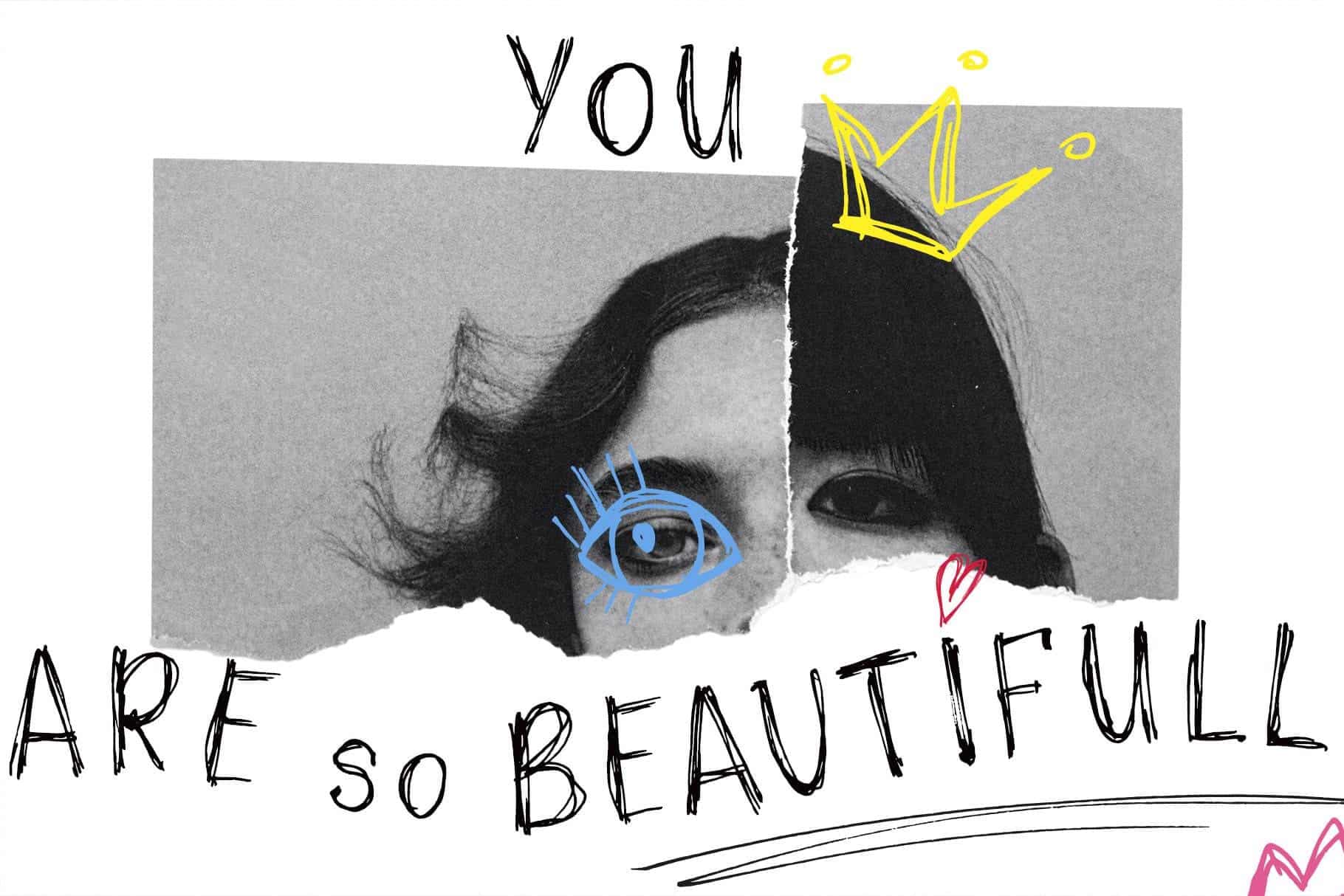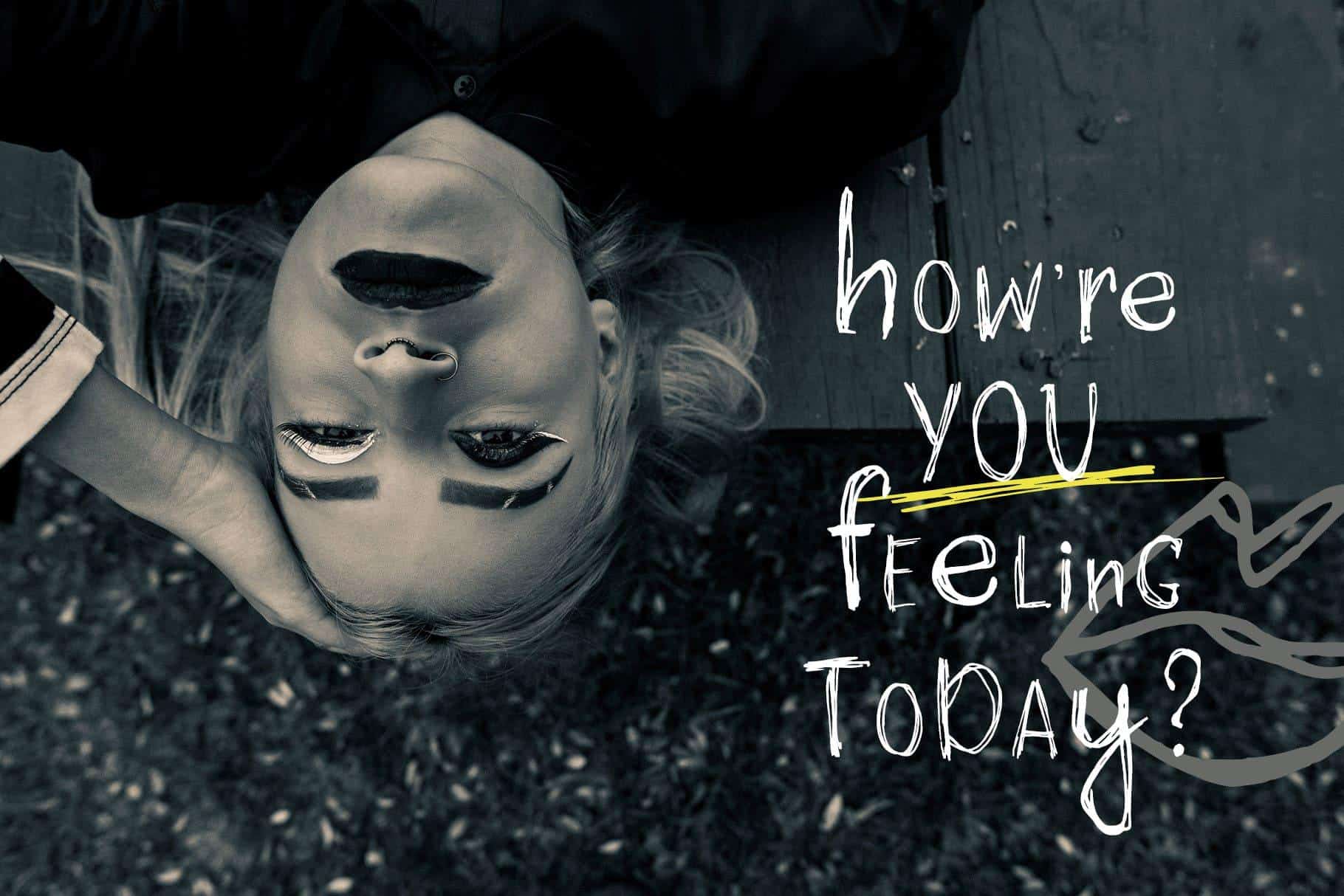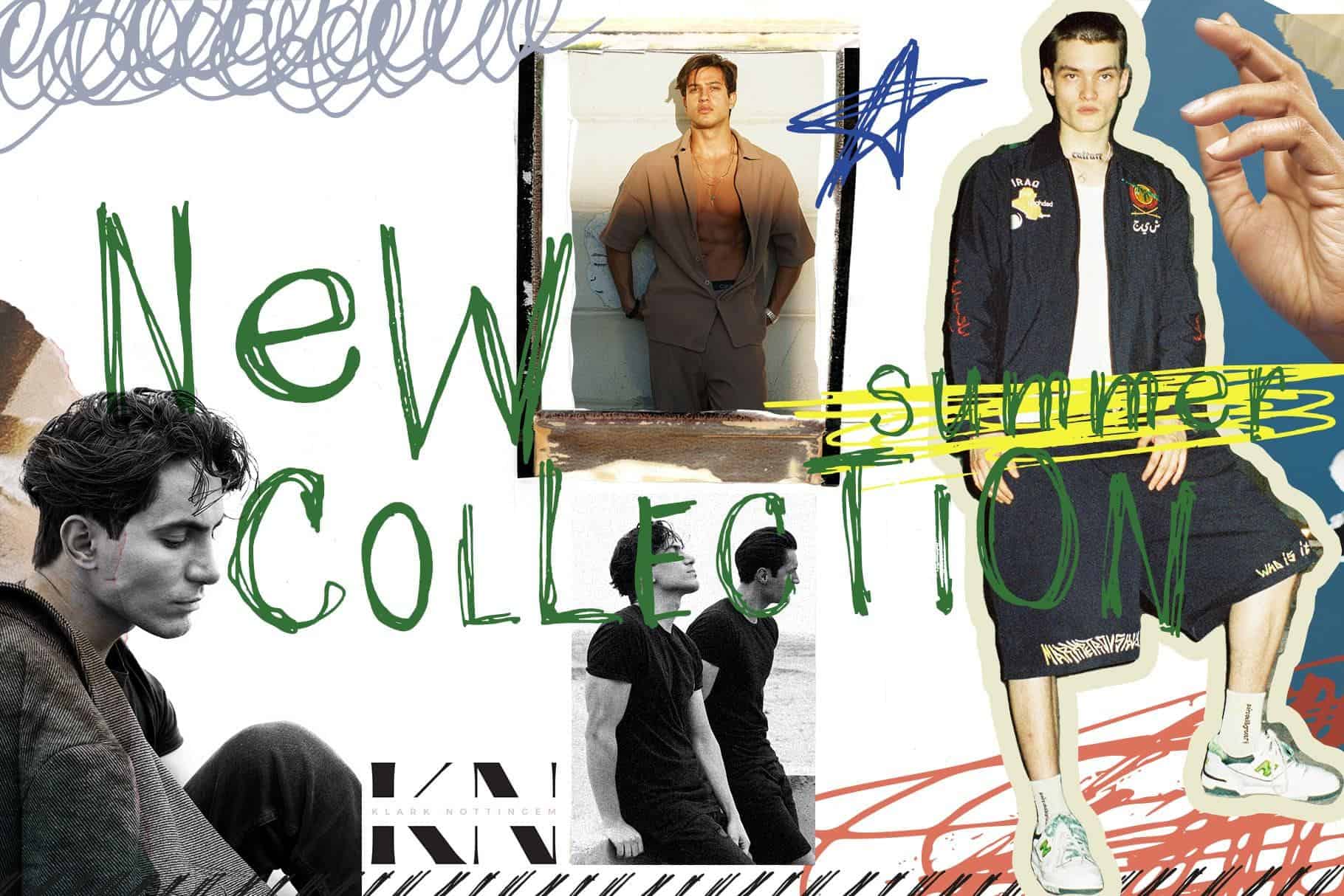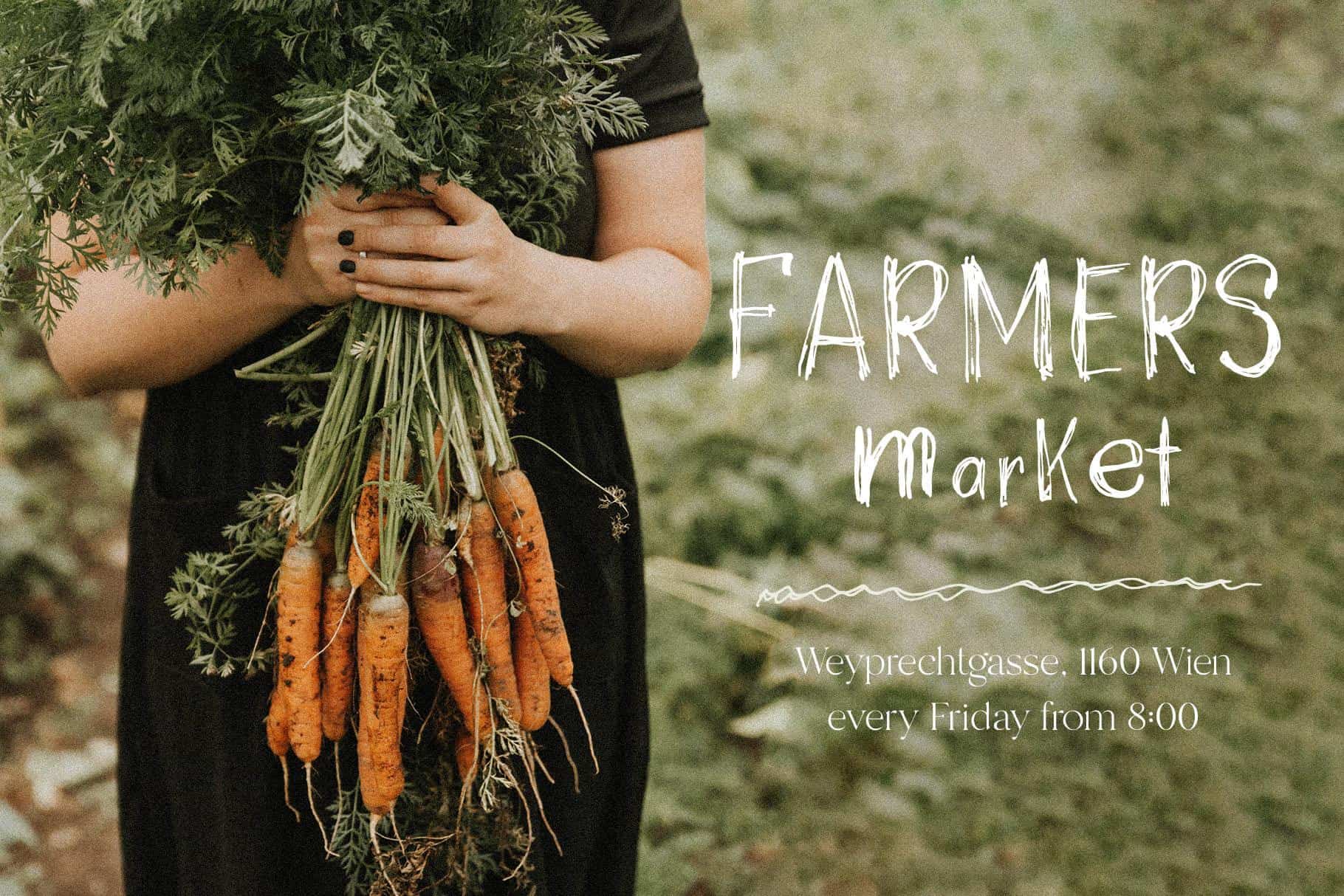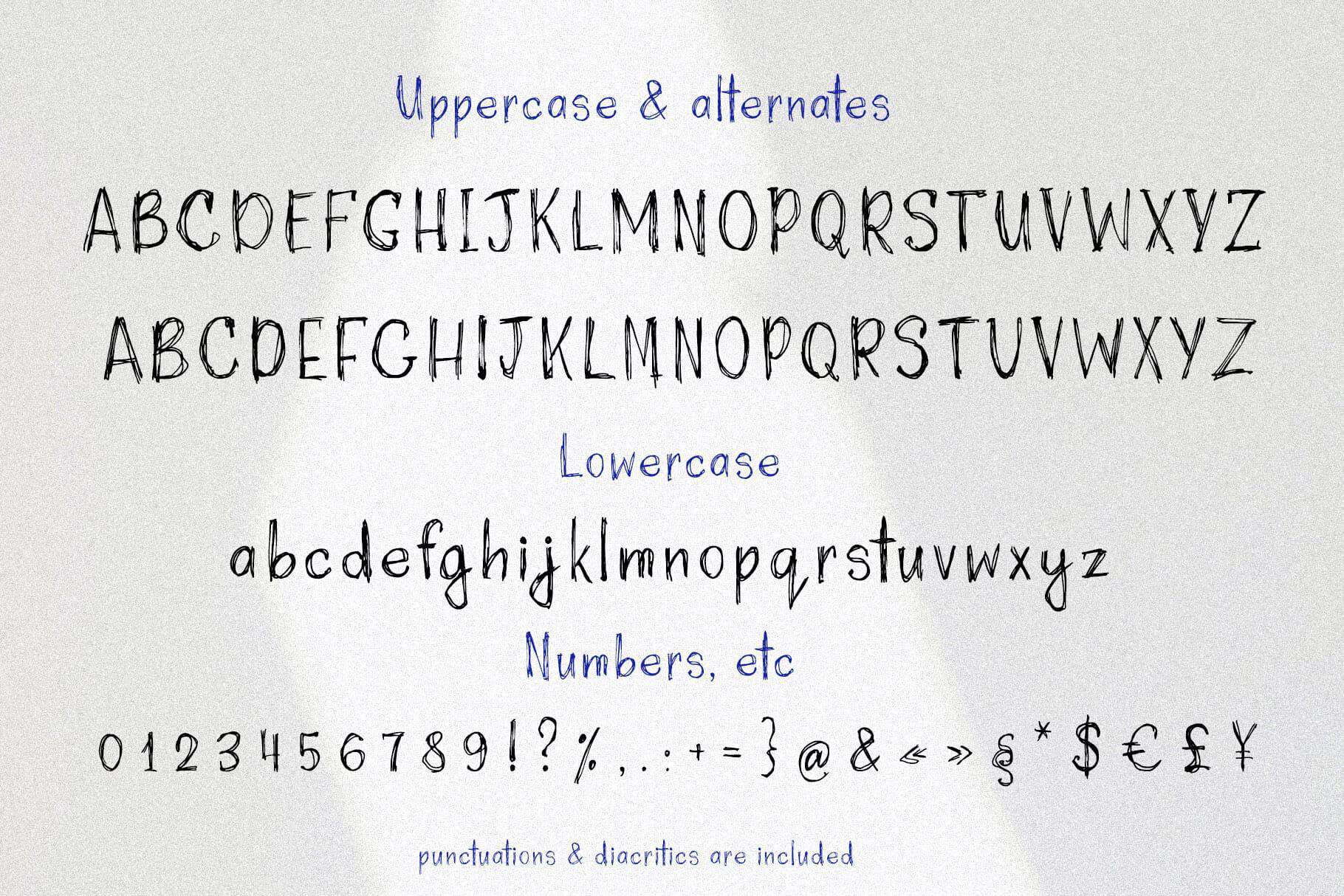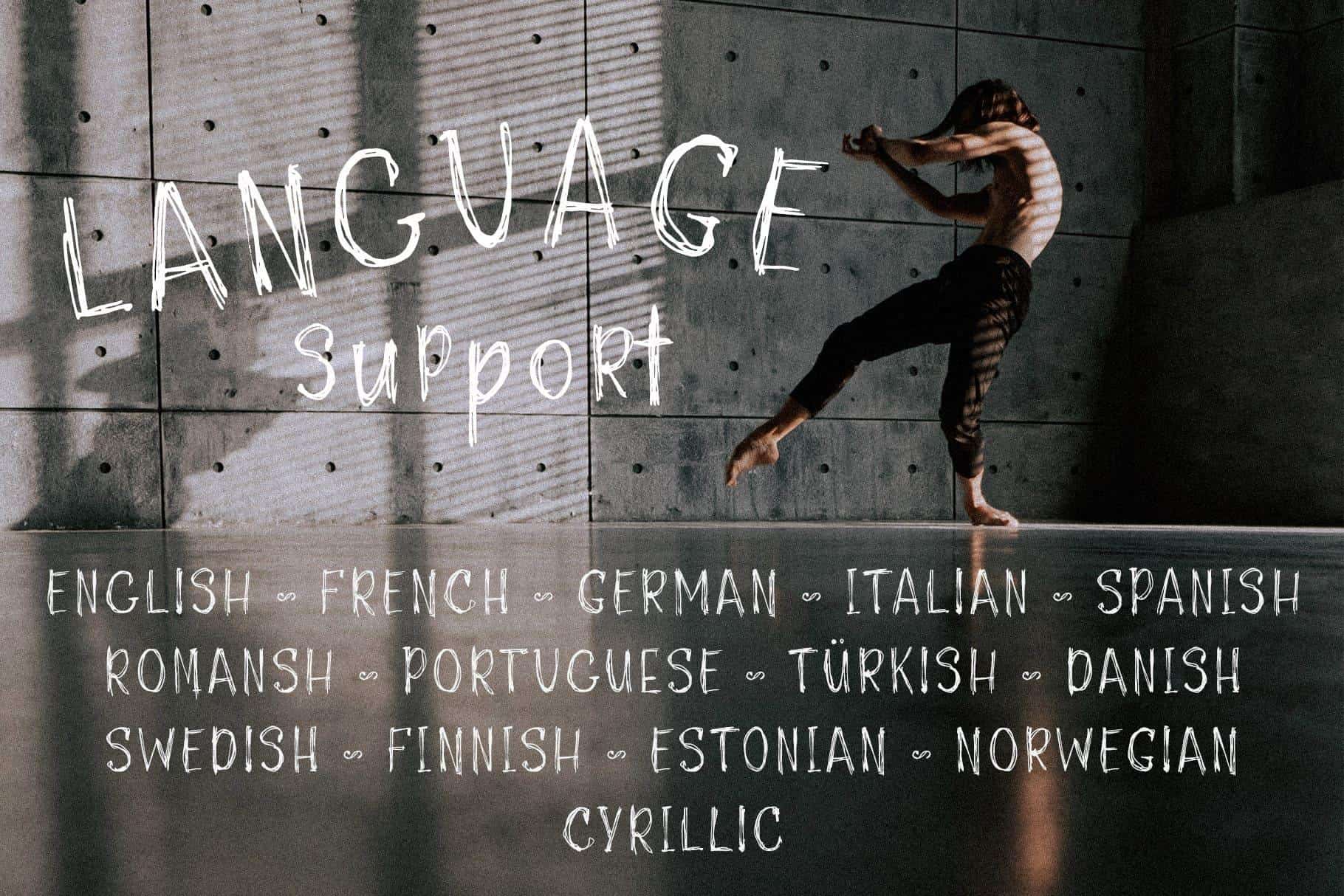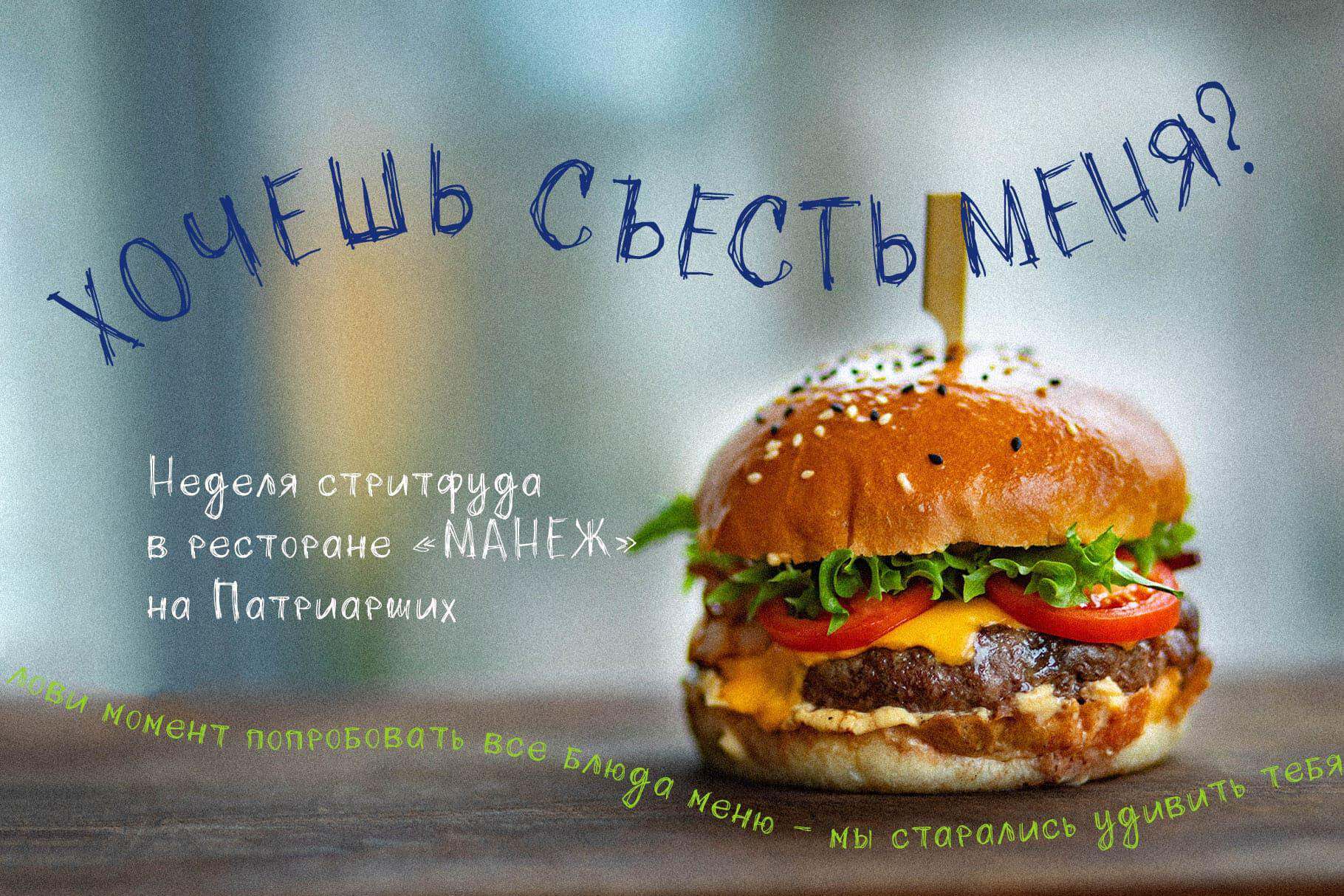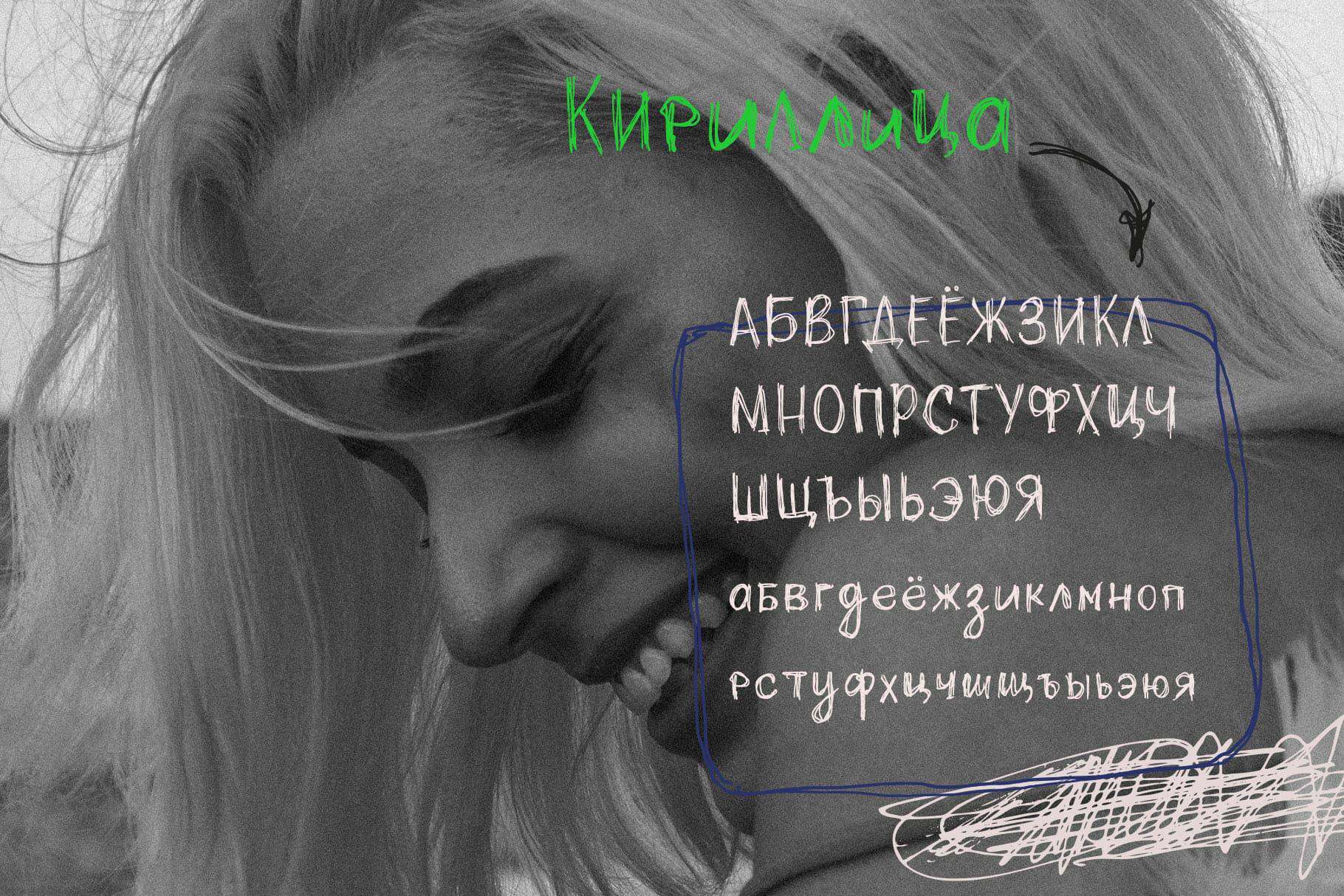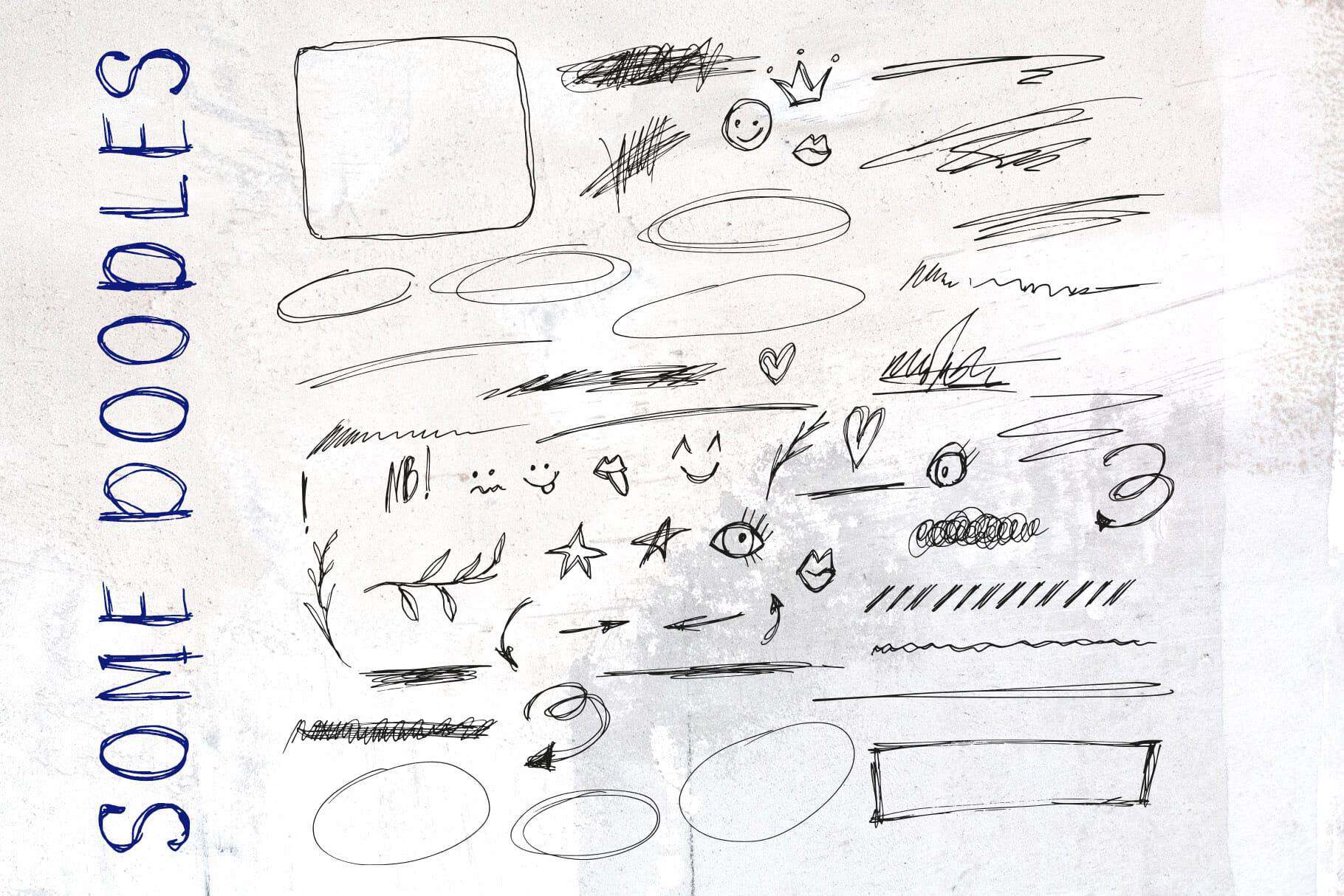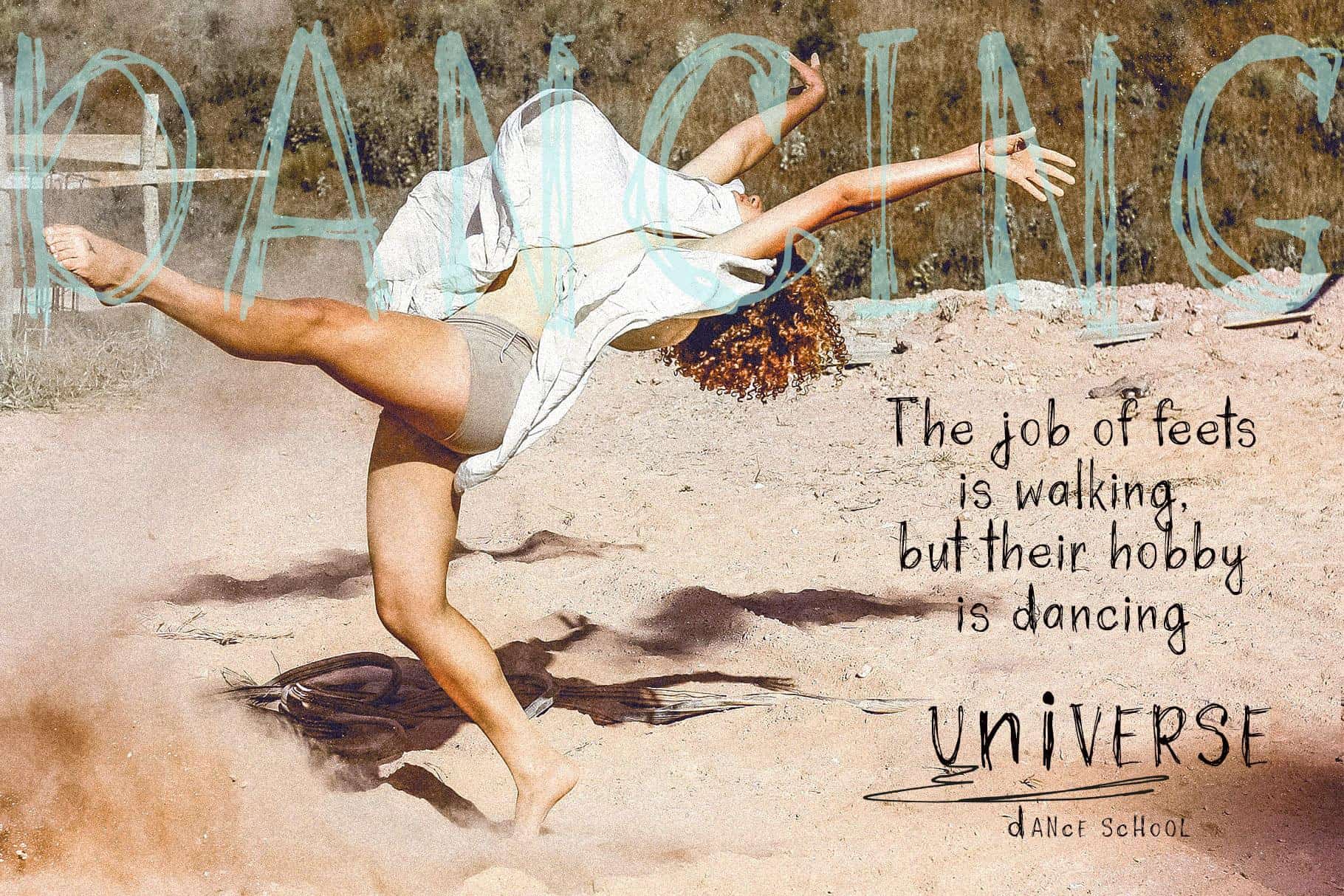
Jumpy scribble handwriting font
JUMPY is a unique handwritten font, created with a fountain pen for a grunge-inspired look
JUMPY is a unique handwritten font, created with a fountain pen for a grunge-inspired look. Its decorative, textured letters are full of character and personality. Perfect for designers seeking an edgy aesthetic, JUMPY also includes a set of hand-drawn illustrations to add even more creativity to your projects.
What makes JUMPY special?
Unique & Textured: Hand-scratched letters bursting with energy and individuality.
Grunge Vibes: Perfect for adding an edgy, bold touch to logos, packaging, and websites.
Multilingual Support: Covers a wide range of languages, including Cyrillic.
Bonus Illustrations: Includes a set of custom hand-drawn illustrations to elevate your designs.
JUMPY is perfect for: attention-grabbing logos, stand-out packaging, unique website layouts, playful invitations and greeting cards, modern poster design, and much more!
JUMPY has extensive language support, it includes English, French, German, Italian, Spanish, Portuguese, Danish, Norwegian, Swedish, Finnish, Estonian, Turkish, Cyrillic.